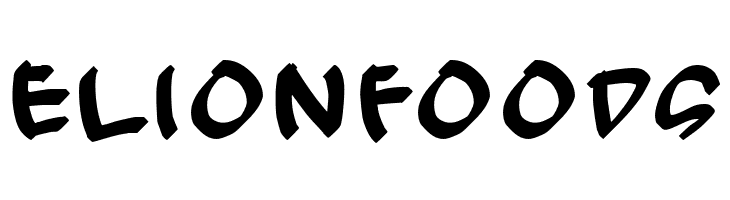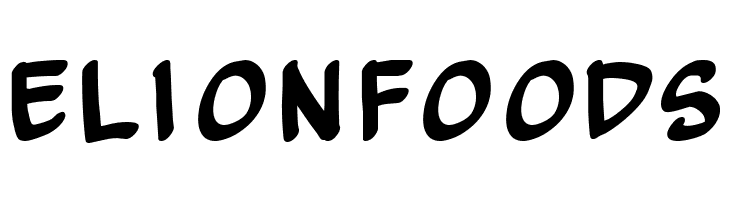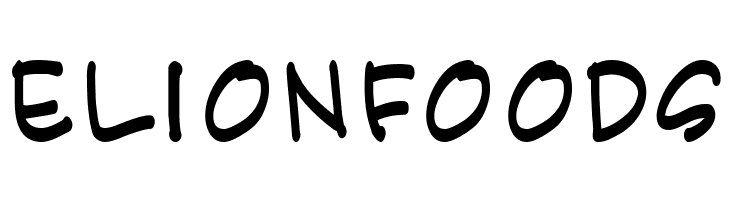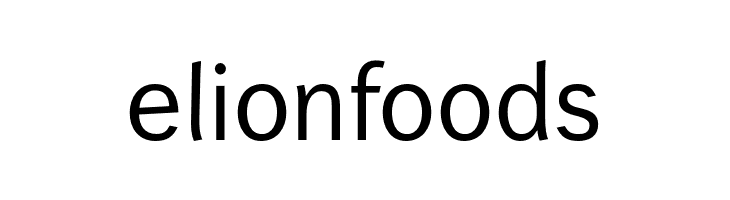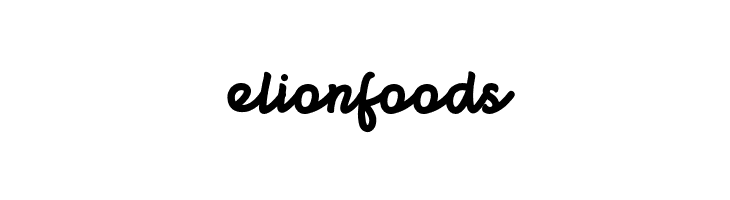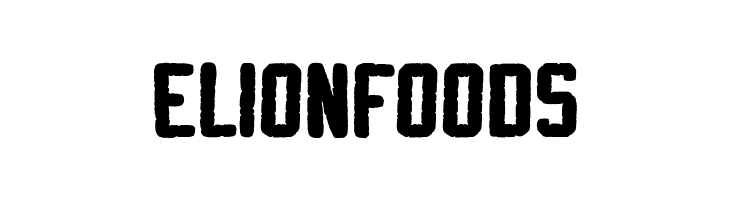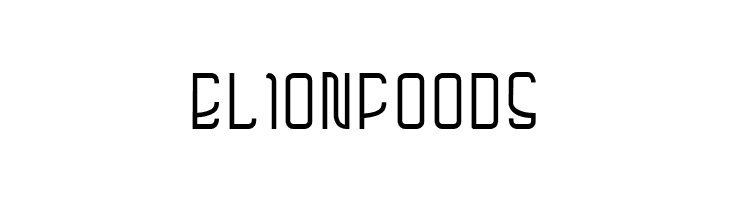
A bold, handwritten font with a playful and dynamic style.
A bold, playful handwritten font with thick strokes and a casual style.
A playful, handwritten-style font with bold, rounded strokes.
A modern sans-serif font with clean lines and balanced proportions.
A bold, textured font with a rugged, vintage appearance.
A bold, geometric font with a modern and dynamic design.
A futuristic, geometric font with clean lines and uniform stroke width.